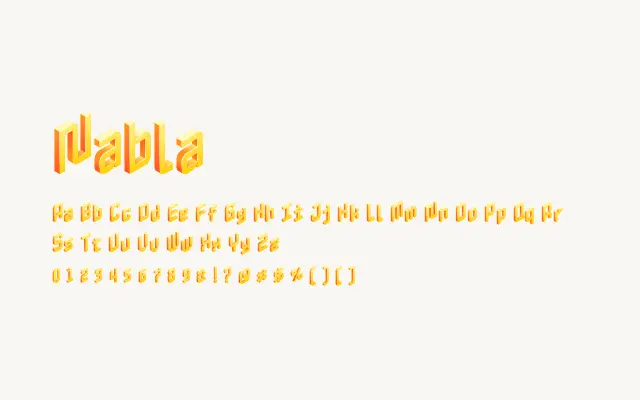
Nabla
A technically groundbreaking COLRv1 colour font that renders each letter as a fully three-dimensional isometric block with customisable depth and gradients.
Nabla exploits modern colour font technology to produce letterforms that appear physically extruded, with gradient-controlled lighting effects adjustable via font variation axes. It supports Latin and Cyrillic Extended scripts, broadening its reach beyond purely Latin display use. The typeface is best deployed at large sizes for headlines, posters, and digital campaigns where its visual spectacle can be fully appreciated.
Nabla is a striking colour font built on the COLRv1 specification, featuring a three-dimensional isometric block structure with customisable gradient depth and perspective. It pushes the boundaries of what a typeface can do technically and visually.